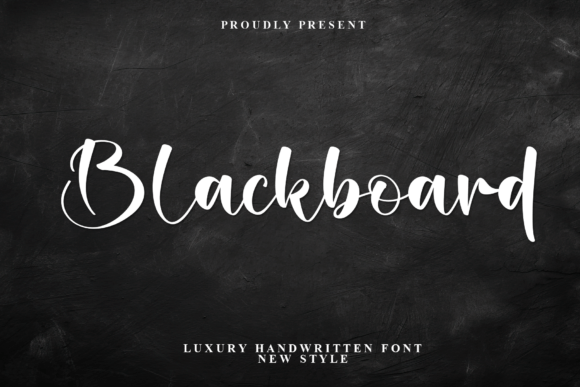
The Elegance of Blackboard Font: A Designer’s Delight
I still remember the day I stumbled upon the Blackboard font while working on a project for a high-end client. I was tasked with creating an invitation suite for a luxurious wedding, and I was struggling to find the perfect font that exuded elegance and sophistication. That’s when I discovered Blackboard, a stylish script font that instantly caught my attention. Its graceful strokes, fluid curves, and carefully crafted letterforms seemed to capture the beauty of hand-drawn calligraphy with a modern twist.
A Personal Review: What I Love and What I Don’t
- ✅ Elegant and sophisticated design that’s perfect for high-end projects
- ✅ Highly versatile and can be used for a variety of design applications, from logos to social media graphics
- ✅ Natural flow and polished details that make it a joy to work with
- ✅ OpenType features and glyphs that allow for creative experimentation
- ⚠️ Limited availability of certain characters and glyphs in some software
- ⚠️ May require some manual adjustments to get the perfect kerning and spacing
The Designer Inspiration Behind Blackboard
Blackboard font was designed with the intention of capturing the beauty of hand-drawn calligraphy with a modern twist. The designer, who wishes to remain anonymous, was inspired by the elegance and sophistication of traditional calligraphy and wanted to create a font that would bring a touch of luxury to modern design. With its graceful strokes, fluid curves, and carefully crafted letterforms, Blackboard font is a testament to the designer’s skill and attention to detail.
| What is Blackboard font best used for? | Blackboard font is ideal for high-end projects, such as logos, invitations, packaging, and social media graphics. |
| Is Blackboard font suitable for body text? | While Blackboard font is elegant and sophisticated, it’s best used for headings and titles rather than body text. |
| Is Blackboard font available in different weights and styles? | Yes, Blackboard font comes in various weights and styles, including regular, bold, and italic. |